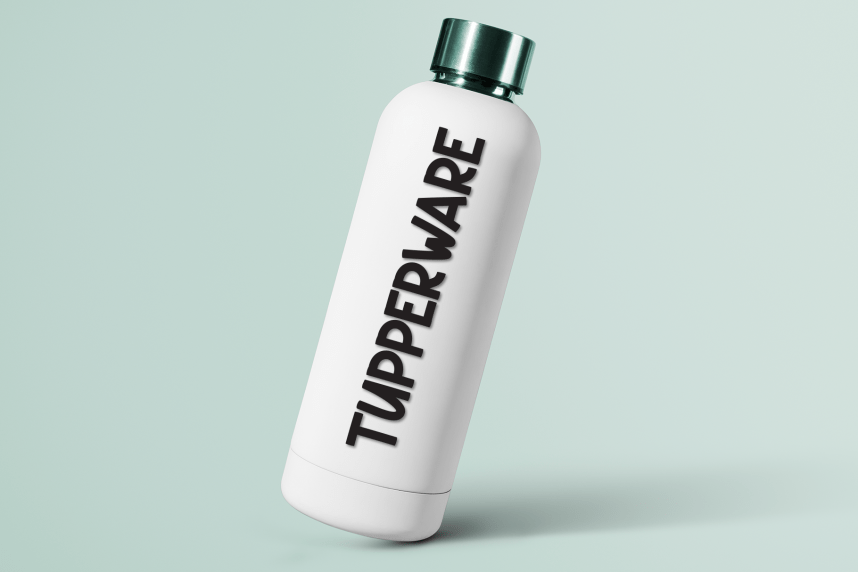
Father Adventure Playful Font
Father Adventure Playful Font is a sweet and friendly handwritten display font. Cute and fun, this font is ideal for writing wedding invitations, cards, or any other design that might need a playful touch!